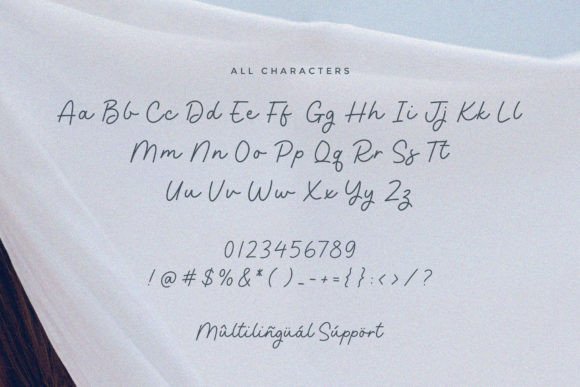
Camelia Beauty Font
Camelia Beauty is a monoline script font, created in a stylish and elegant choice for various design projects. Inspired by Latin script, this font features smooth and flowing lines that give it a sense of sophistication. With its consistent stroke weight, each letter maintains a balanced and harmonious appearance.